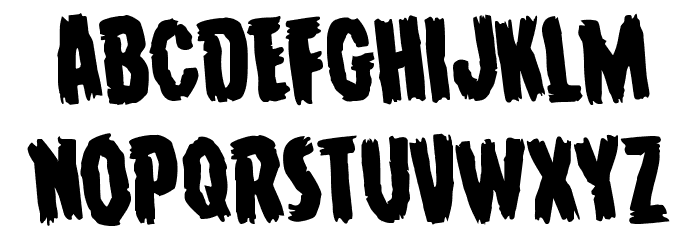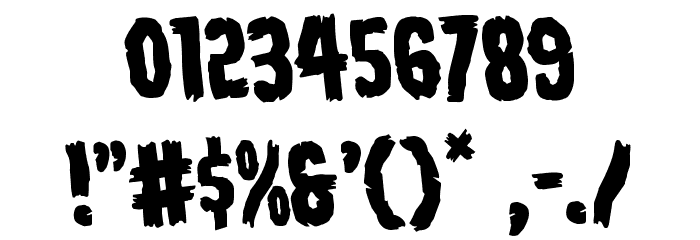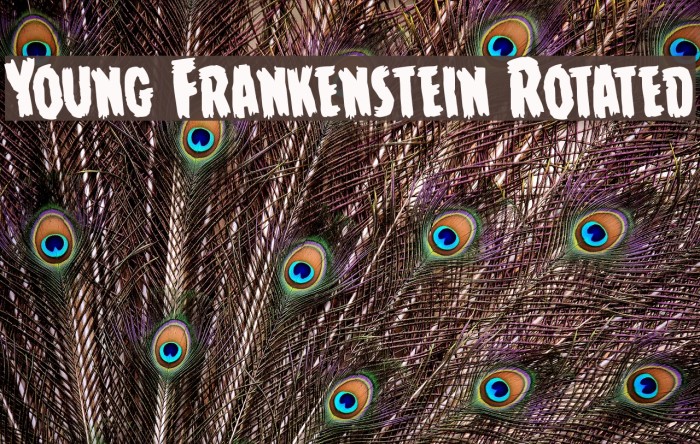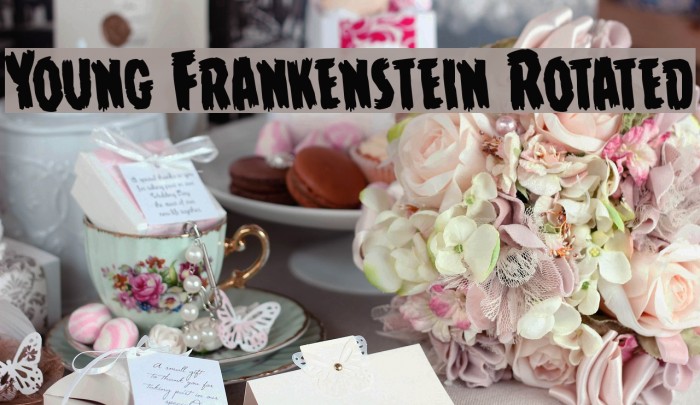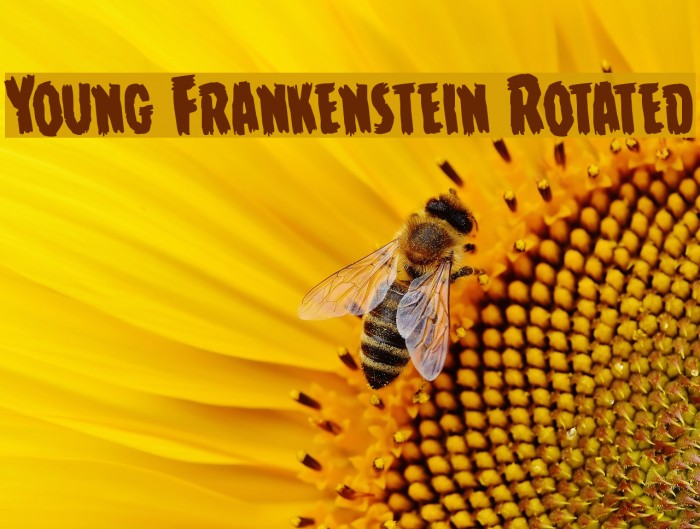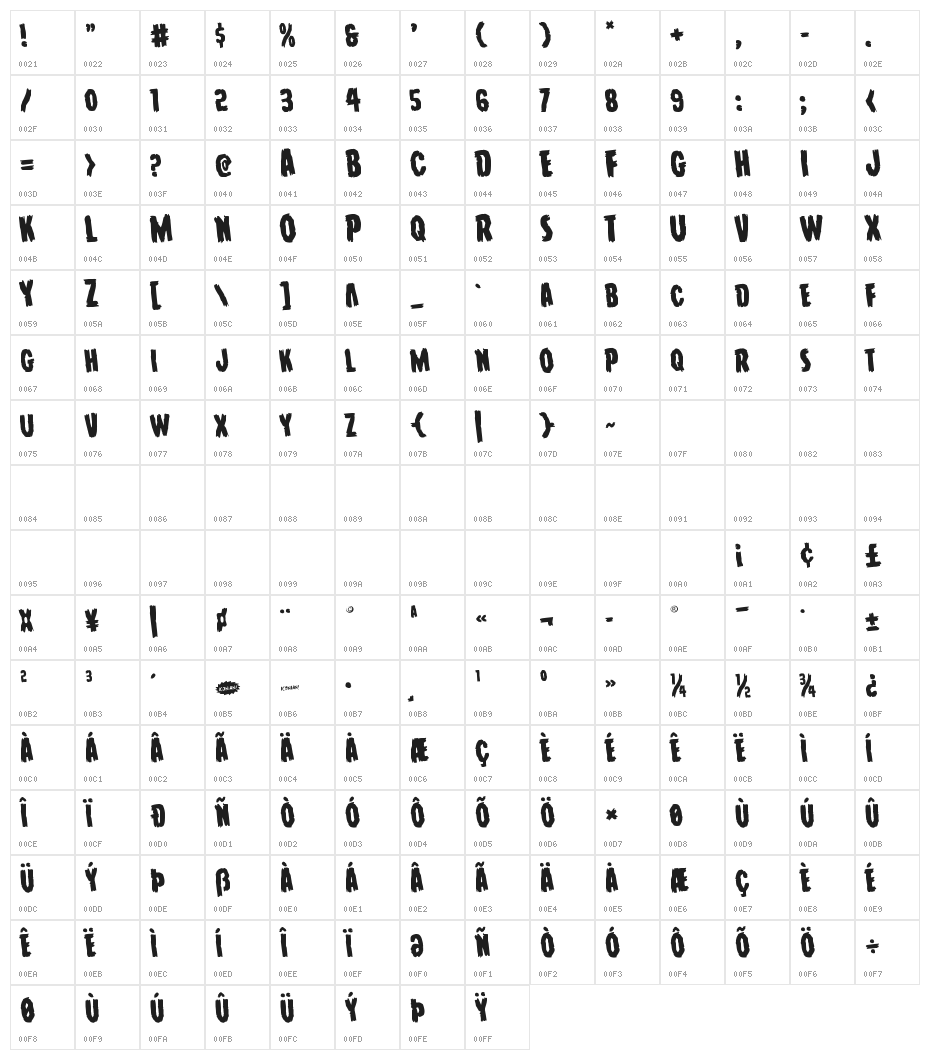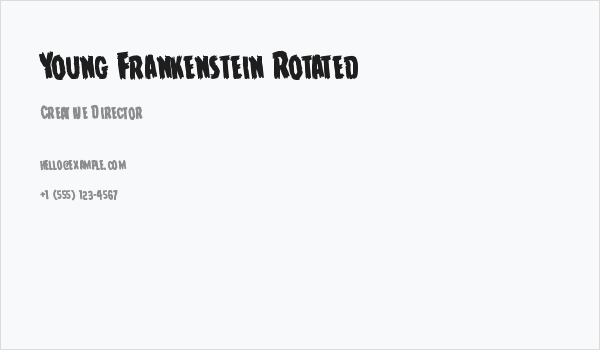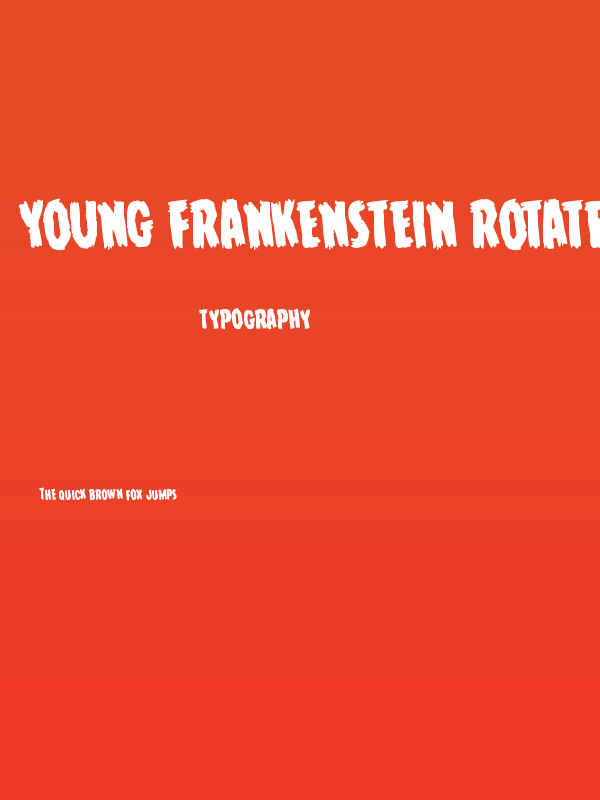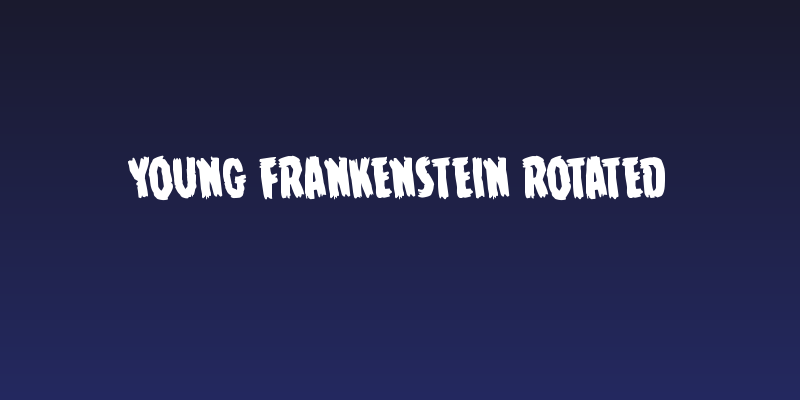
Young Frankenstein Rotated Font
This font features a bold and dramatic style with a rough, hand-drawn appearance. The characters are thick and uneven, giving them a rugged and energetic feel. The uppercase and lowercase letters maintain a consistent weight, while the numbers and special characters follow the same bold and expressive design. The font's irregular edges and dynamic strokes create a sense of movement and intensity, making it stand out in any design. Its unique style is reminiscent of classic horror or thriller themes, perfect for projects that require a touch of drama and excitement.
A bold, hand-drawn font with a rugged and dramatic style.
- Proposed Projects: Ideal for movie posters, Halloween-themed designs, book covers, and event flyers.